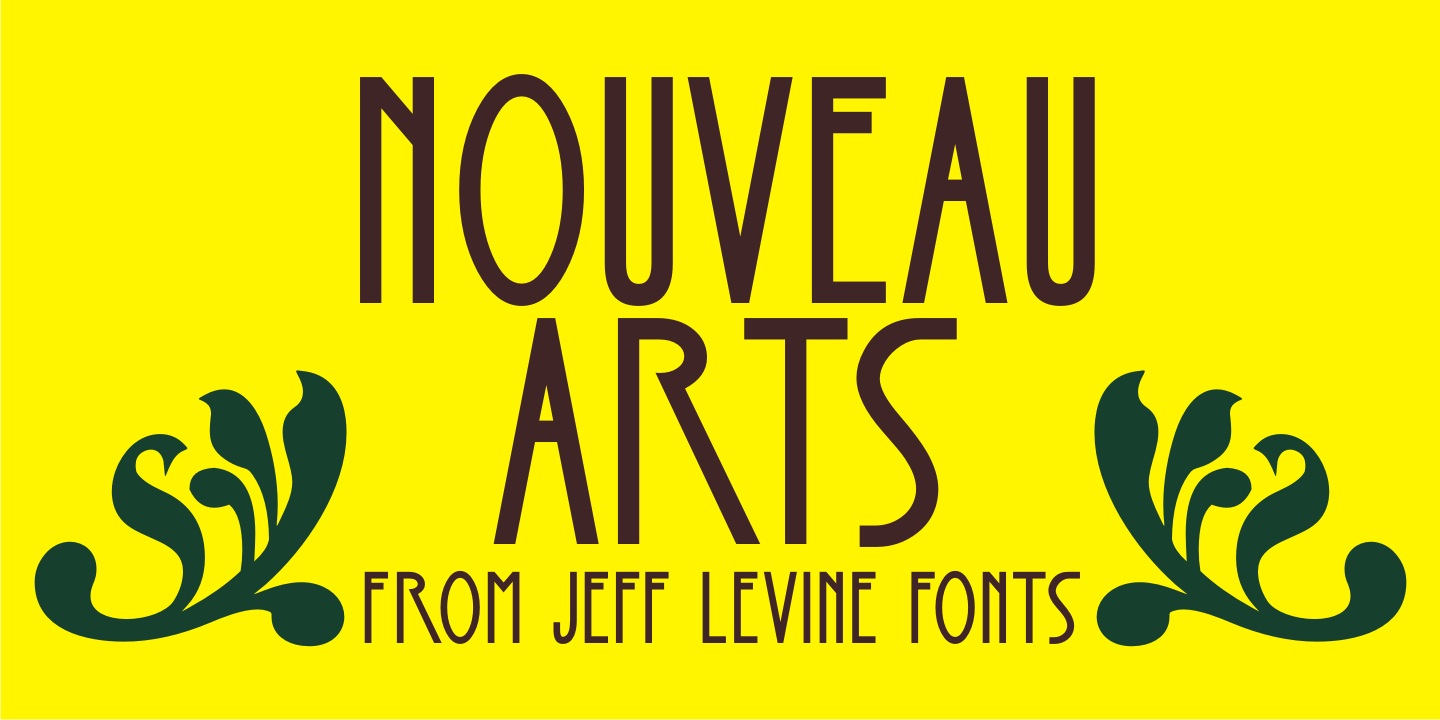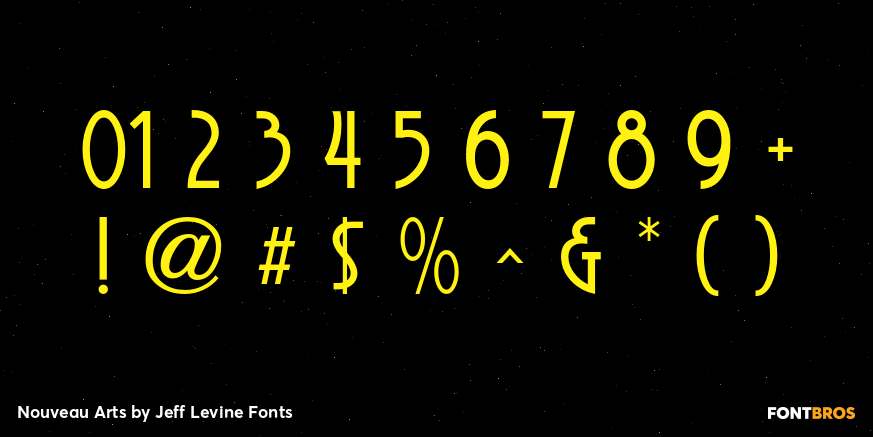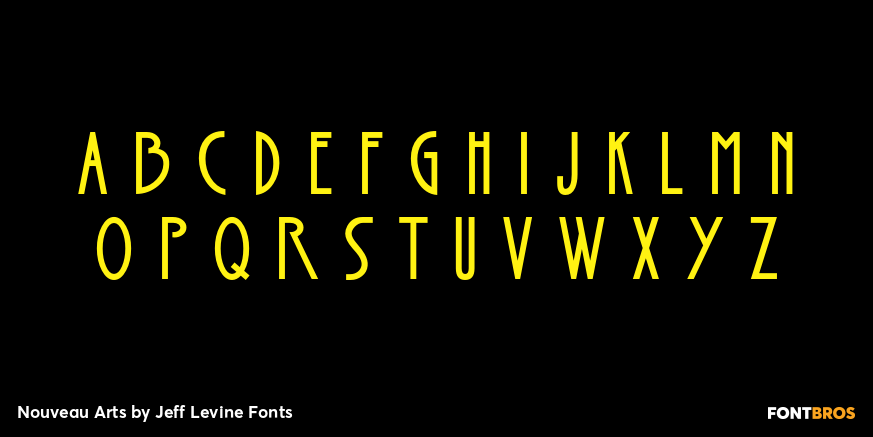
Nouveau Arts
The hand lettered title on sheet music for 1915's novelty song 'Gasoline Gus and His Jitney Bus' by Byron Gay and Charley Brown offered up the lettering style which is now Nouveau Arts JNL.